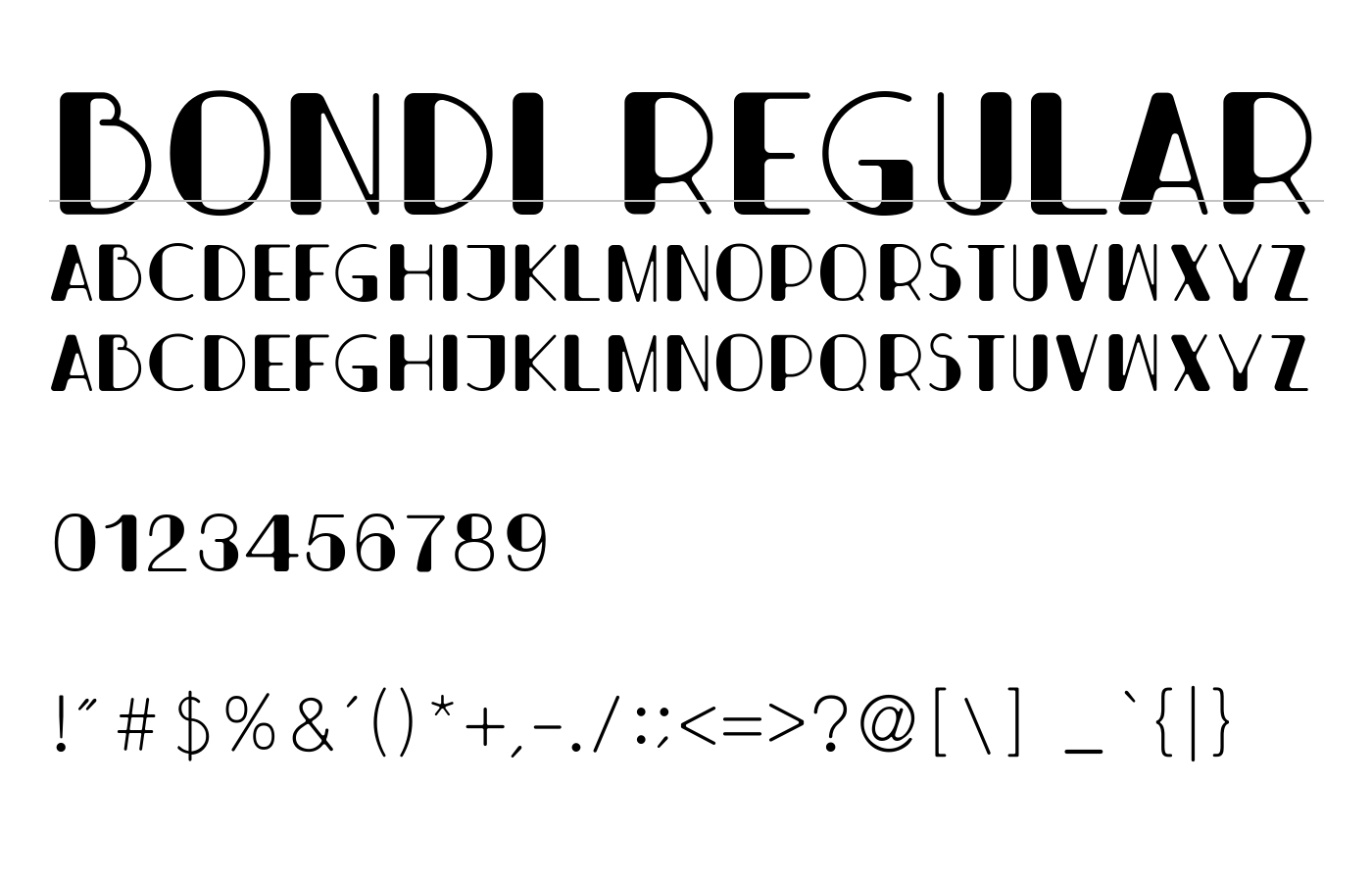
Bondi is a unique sans serif font with a playful and artistic personality, featuring a mix of thick and thin strokes that create a lively rhythm. Its tall x-height and narrow letterforms give it a modern, slightly condensed appearance, making it perfect for eye-catching headlines, logos, and creative branding projects. This font stands out with its distinctive shapes and conversational style, ideal for brands seeking a fresh, stylish, and memorable look.
| Font family | Bondi Font |
| Languages supported | Latin, Symbols, Hebrew |
| Designer | Alejo Bergmann |